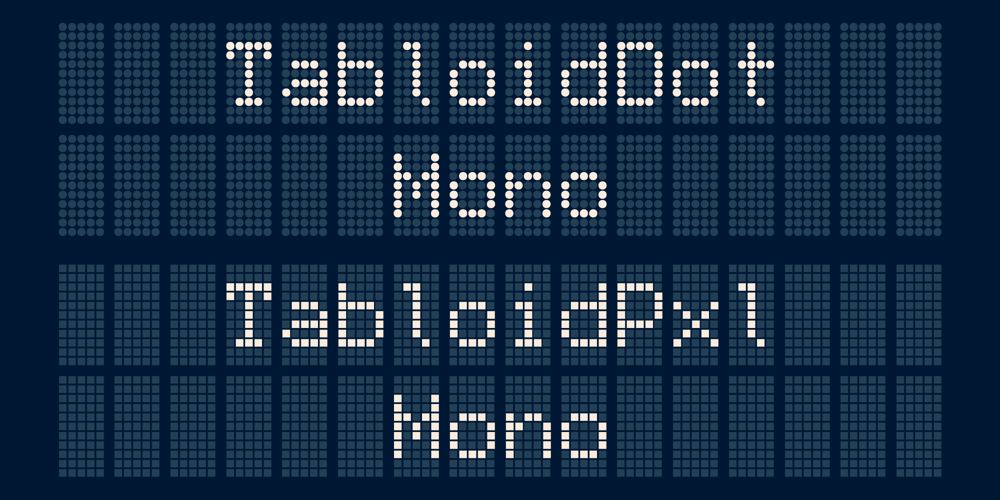
TabloID Font Family was designed by Nadyr Rakhimov and published by Nadyr Rakhimov. TabloID contains 18 styles and family package options. TabloID is a simple monospaced font created for a small project. Its purpose was to mimic the inscriptions on an electronic scoreboard in the form of dots arranged in a grid. After a while, I decided to make an extended version of the font, with alternative characters and more text, as well as a font variable to control the size of the dots.The font is suitable for design in the style of electronic signage or for printing on a dot-matrix printer. It has 8 style sets, proportional and minuscule numerals, ornaments, arrow set, currency symbols.Stylistic sets do not overlap, you can use several sets at the same time and change their order to create your own unique text design pattern.Update:Version 2.0 of the font has been released.What’s changed? The typeface has become denser. Two new style sets have been added and existing style sets have been expanded. Support for the Greek alphabet has been added. An additional square dot variant of the font has been released.